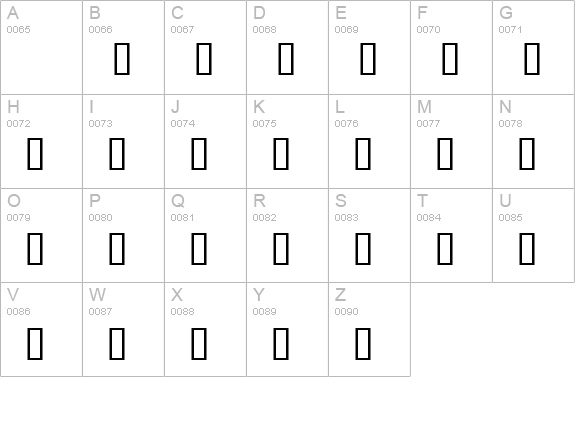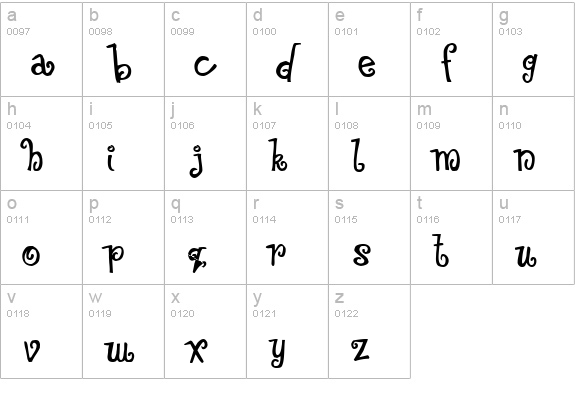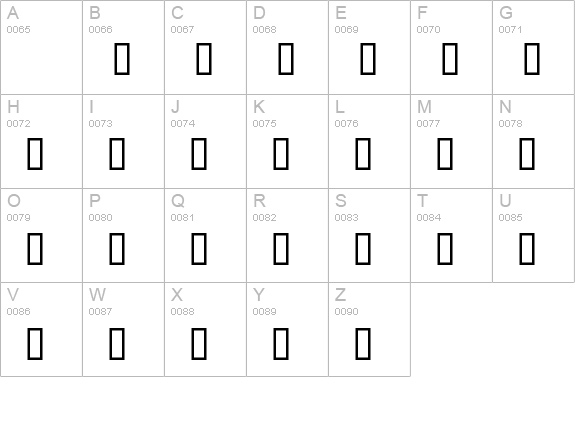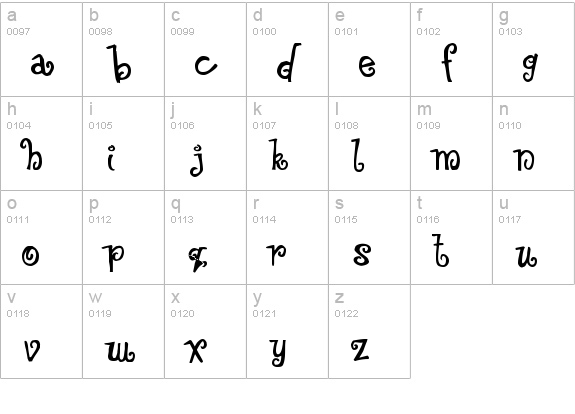
Floozy Font Details
Introducing Floozy font, a playful and whimsical typeface that exudes charm and personality. With its unique curves and stylish flourishes, Floozy is perfect for adding a touch of fun to your designs. Whether you're working on a greeting card, poster, or branding project, this font will bring a sense of joy and creativity to your work. What's even better is that Floozy font is available for free download at FontsMarket.com. You can easily access this delightful font and incorporate it into your projects without any hassle. Embrace the playful spirit of Floozy font and let your creativity shine with this charming typeface.